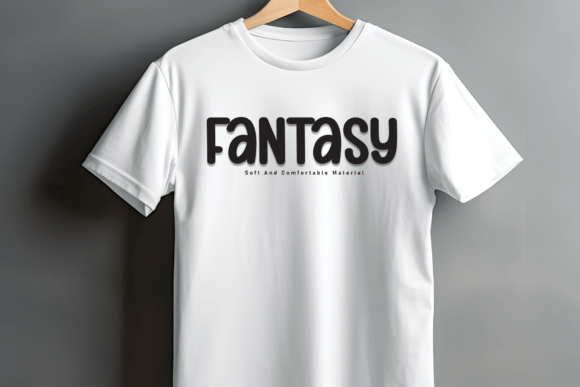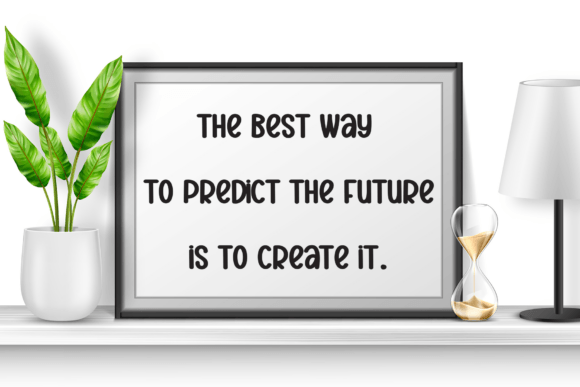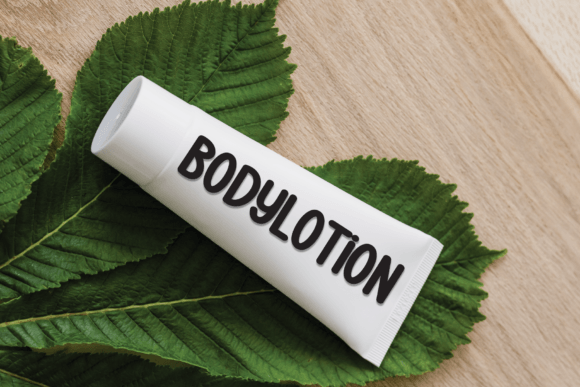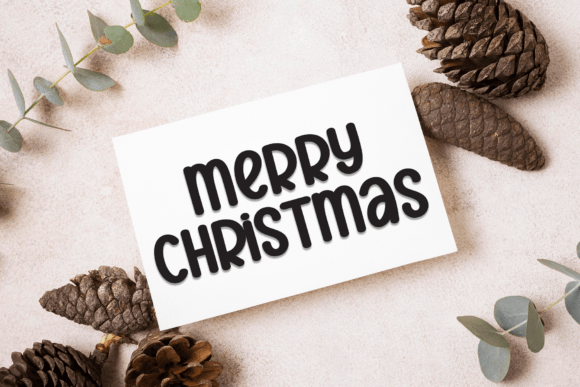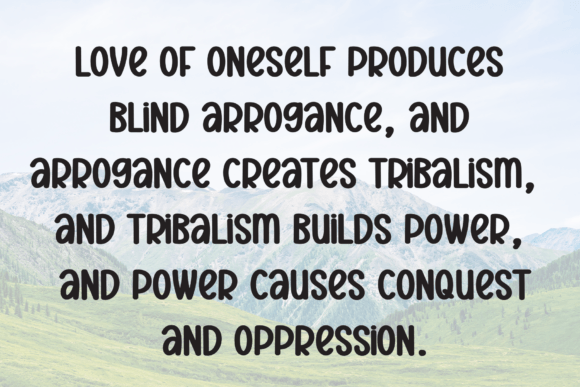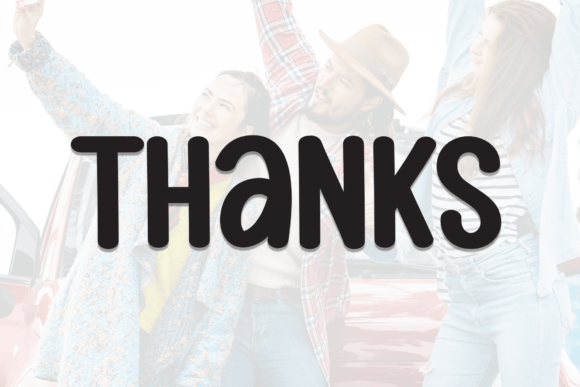
The Perfect Script for Your Holiday Creations
You know that moment when you’re brainstorming ideas for a special project, and suddenly the perfect font pops into your mind? For many designers, that moment is a game-changer. It’s the spark that sets their creative juices flowing and helps bring their vision to life. For us, that moment often involves the beautiful Holiday Saturday Font.
This sweet and friendly handwritten font is more than just a pretty face – it’s a versatile tool that can elevate any design. Whether you’re creating a festive holiday card, a cheerful blog post, or a unique gift tag, Holiday Saturday Font is the perfect companion to help you bring your ideas to life. Its natural and unique style makes it incredibly fitting to a wide range of designs, limited only by your imagination.
Holiday Saturday Font Key Features
- Font Family: Holiday Saturday Font is a unique, handwritten font family designed to evoke a sense of warmth and nostalgia.
- Unique Characteristics: The font features an authentic, handwritten feel with subtle imperfections, giving it a personal and emotive touch.
Designer Review: Holiday Saturday Font
First of all, I love the whimsical feel of the Holiday Saturday Font. It’s perfect for winter-themed designs, and the ✨ playful touch it adds is undeniable. The font is well-designed, with a clear and legible structure that makes it easy to read.
The Holiday Saturday Font has a wide range of applications, from Christmas and New Year’s Eve invitations to winter-themed social media posts and blog titles. It’s also a great choice for packaging design, advertising, and editorial content.
- ✨ Unique and festive design
- ✨ Clear and legible structure
- ✨ Wide range of applications
- ⚠️ Limited support for non-English languages
- ⚠️ May not be suitable for formal or professional designs
In conclusion, the Holiday Saturday Font is a fun and festive addition to any design project. While it may have some limitations, its unique design and wide range of applications make it a great choice for designers looking to add a touch of whimsy to their work.
Use Holiday Saturday Font for festive designs, such as holiday cards, invitations, and social media posts. You can also use it for branding and marketing materials to add a touch of festivity to your brand’s identity.
For the most striking results, pair Holiday Saturday Font with bold, bright colors and playful graphics.
Alternatives to Holiday Saturday Font
Pacifico is a beautiful, modern script font perfect for creating a warm and inviting atmosphere. It’s ideal for use in wedding invitations, event branding, and social media graphics. Pacifico’s flowing lines and elegant curves make it a great alternative to Holiday Saturday Font for designers who want to add a touch of sophistication to their designs.
Comparison: Pacifico has a more refined and polished look compared to Holiday Saturday Font, which is more playful and whimsical. Pacifico is suitable for formal events, while Holiday Saturday Font is better suited for casual gatherings.
Great Vibes is a fun and energetic script font that’s perfect for creating a lively and festive atmosphere. It’s ideal for use in party invitations, social media graphics, and event branding. Great Vibes has a more relaxed and casual feel compared to Holiday Saturday Font, making it a great alternative for designers who want to create a fun and carefree vibe.